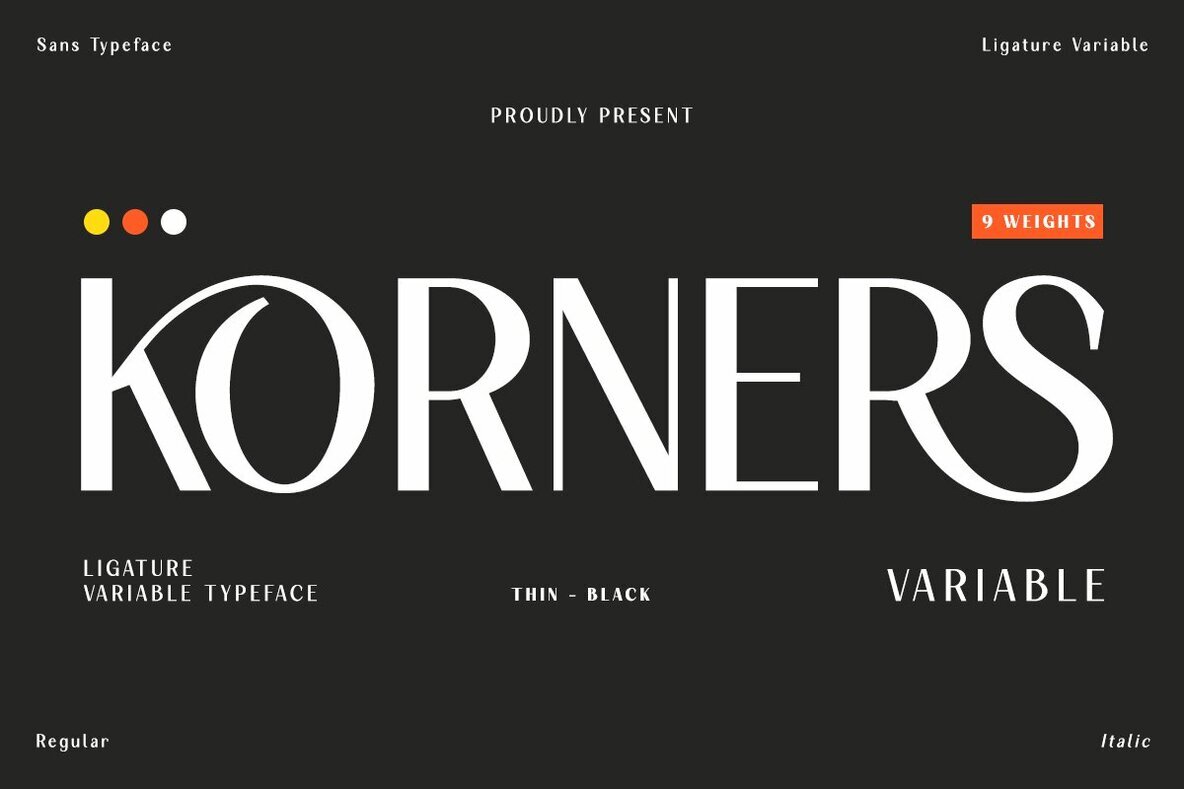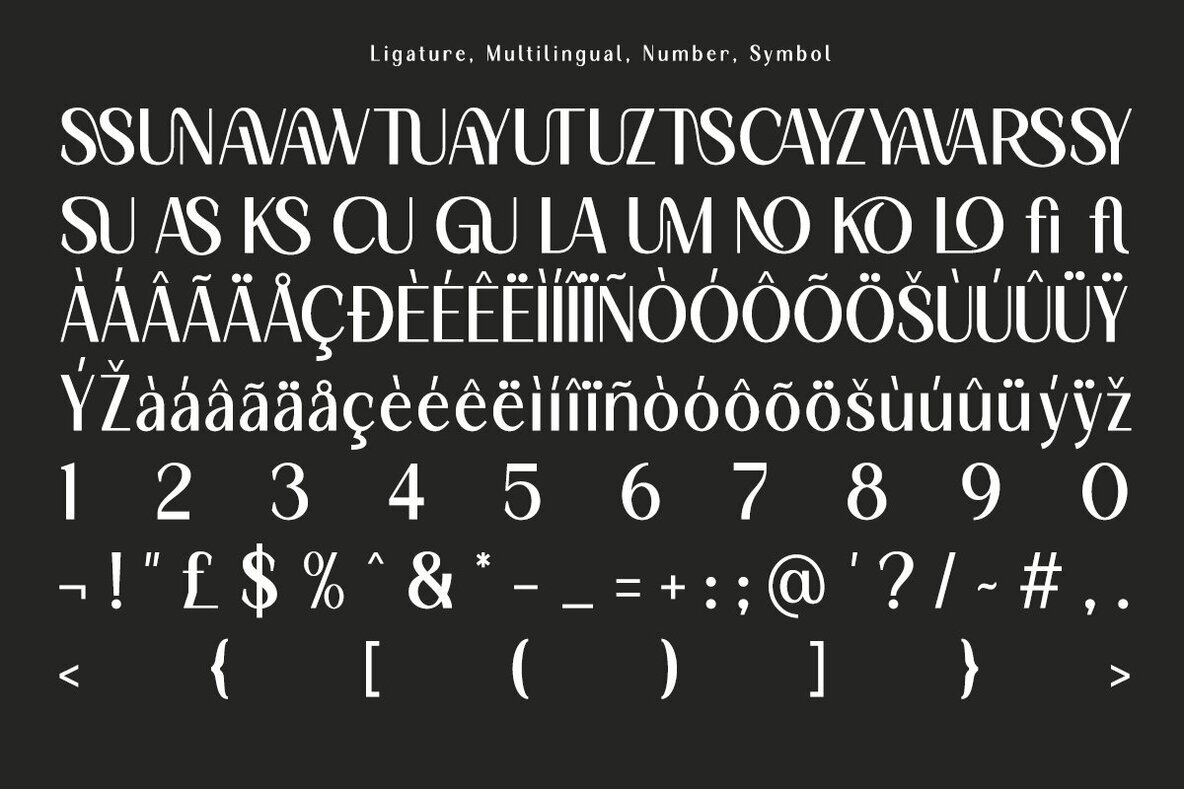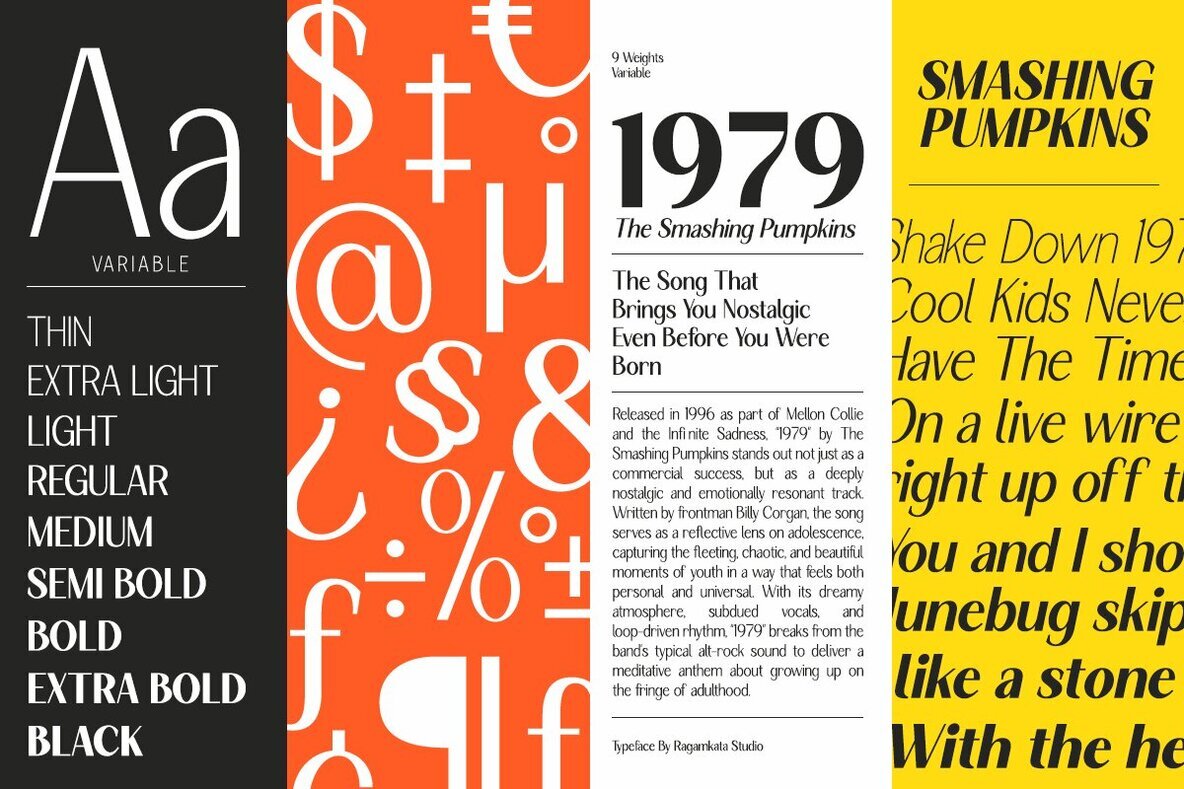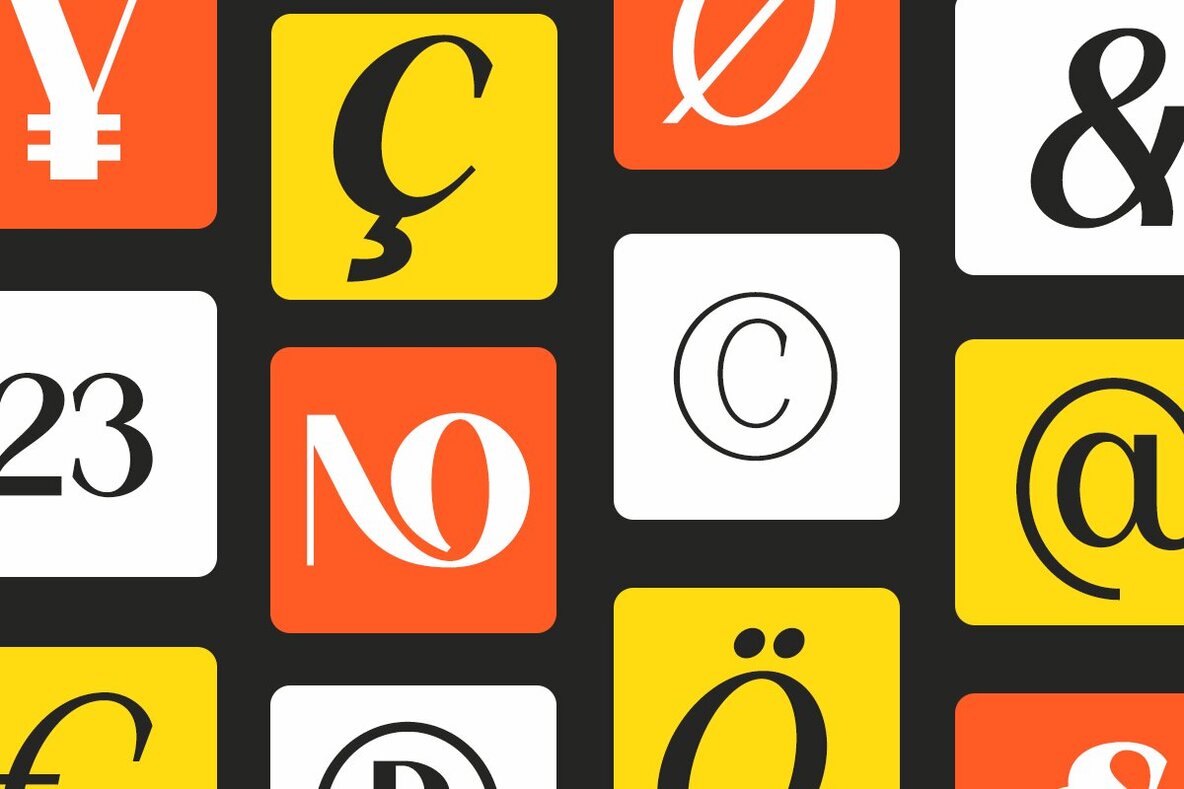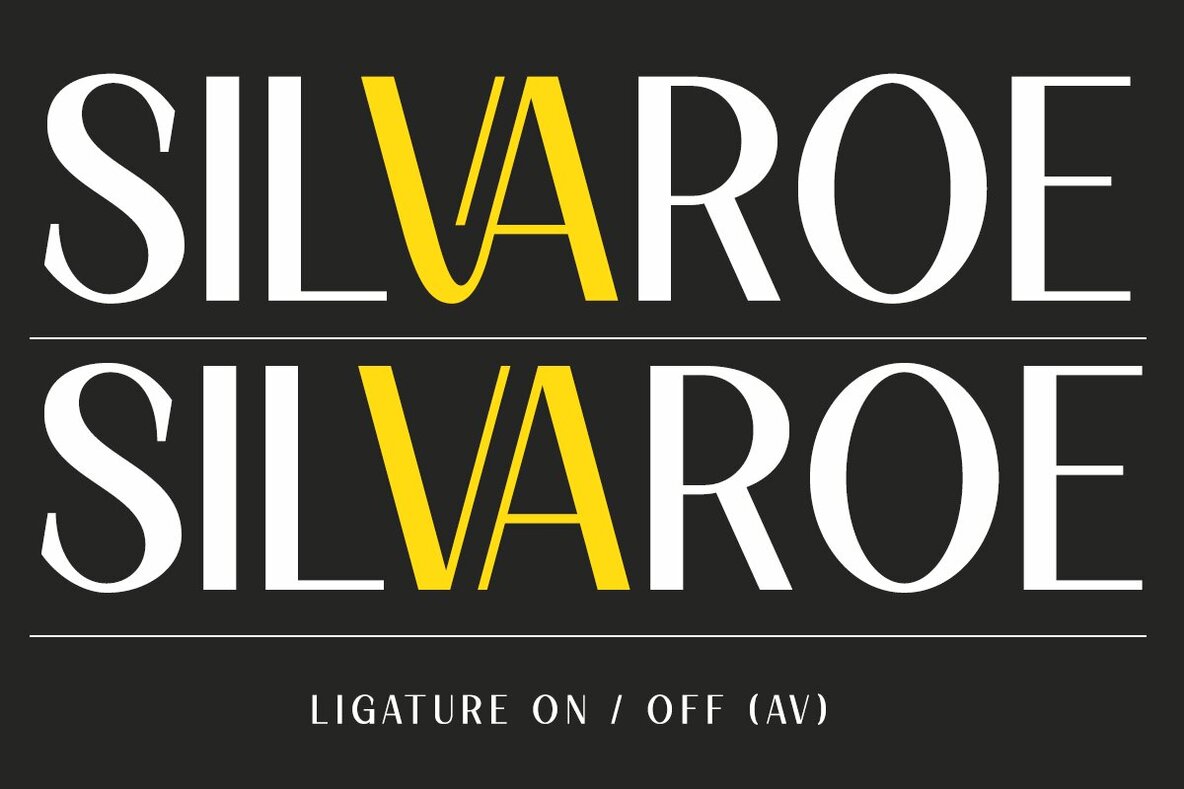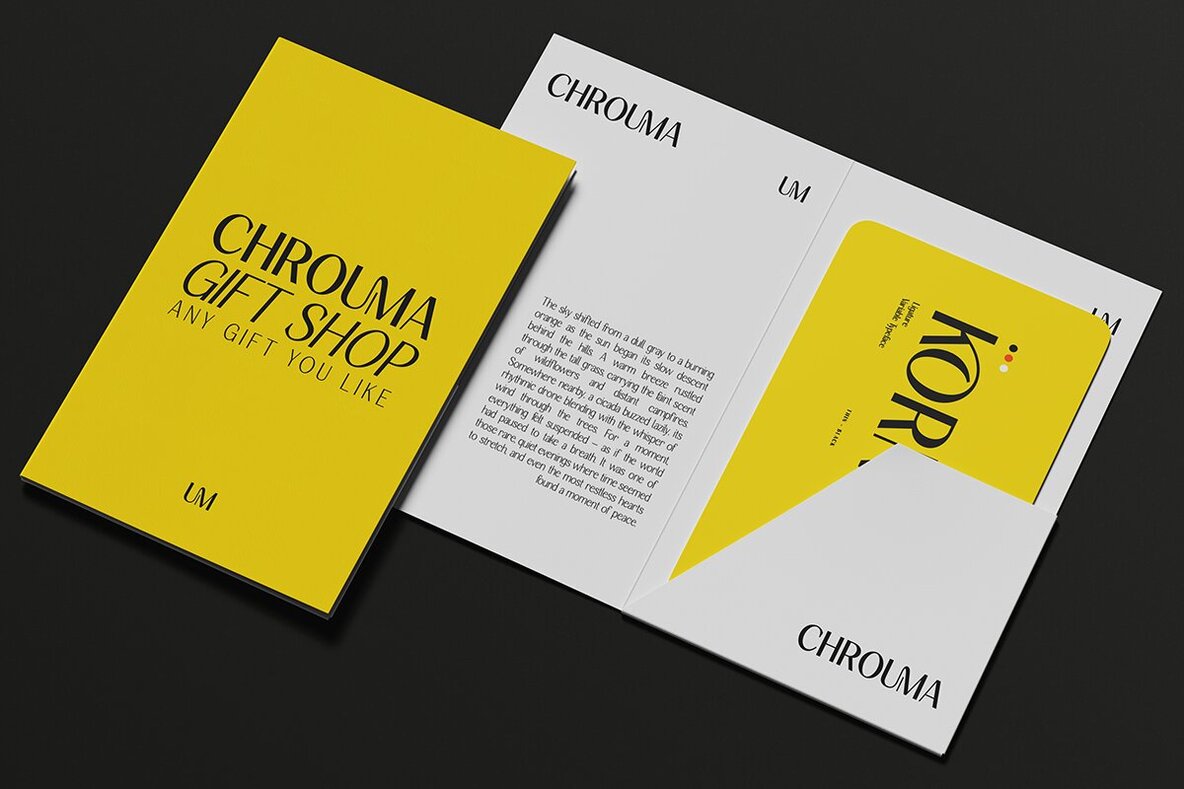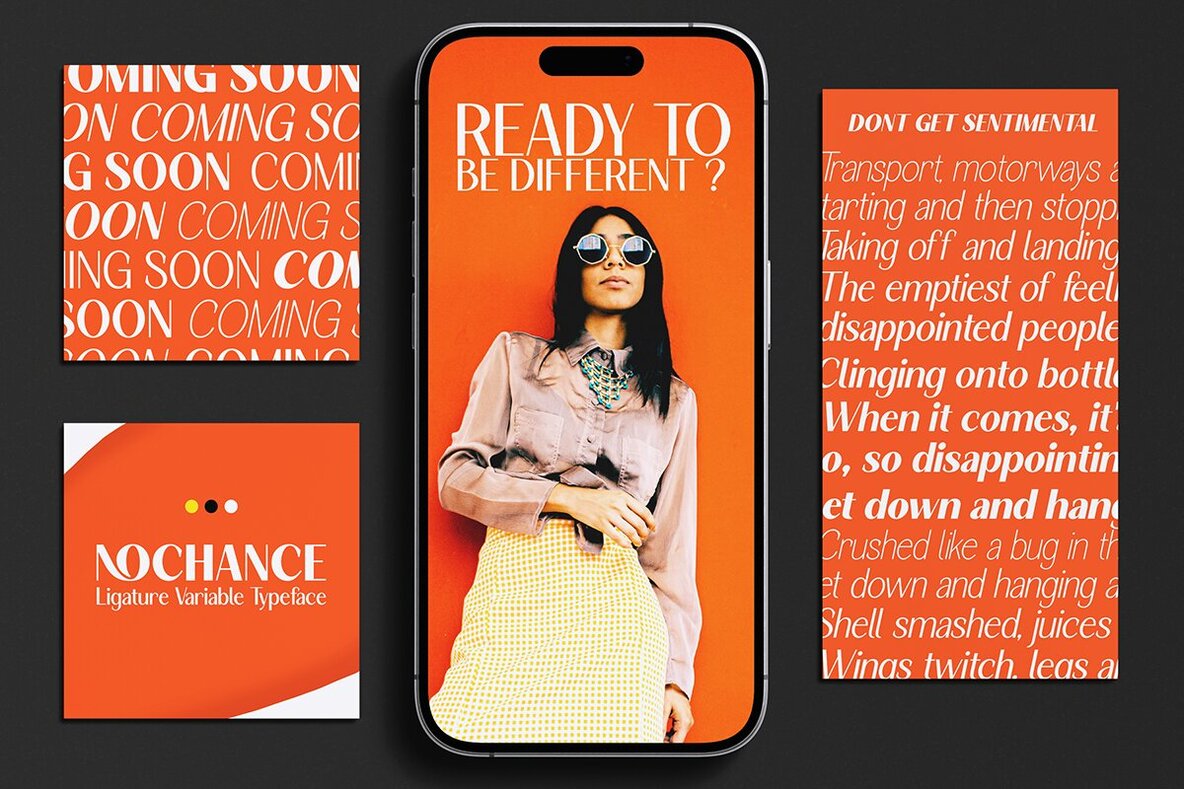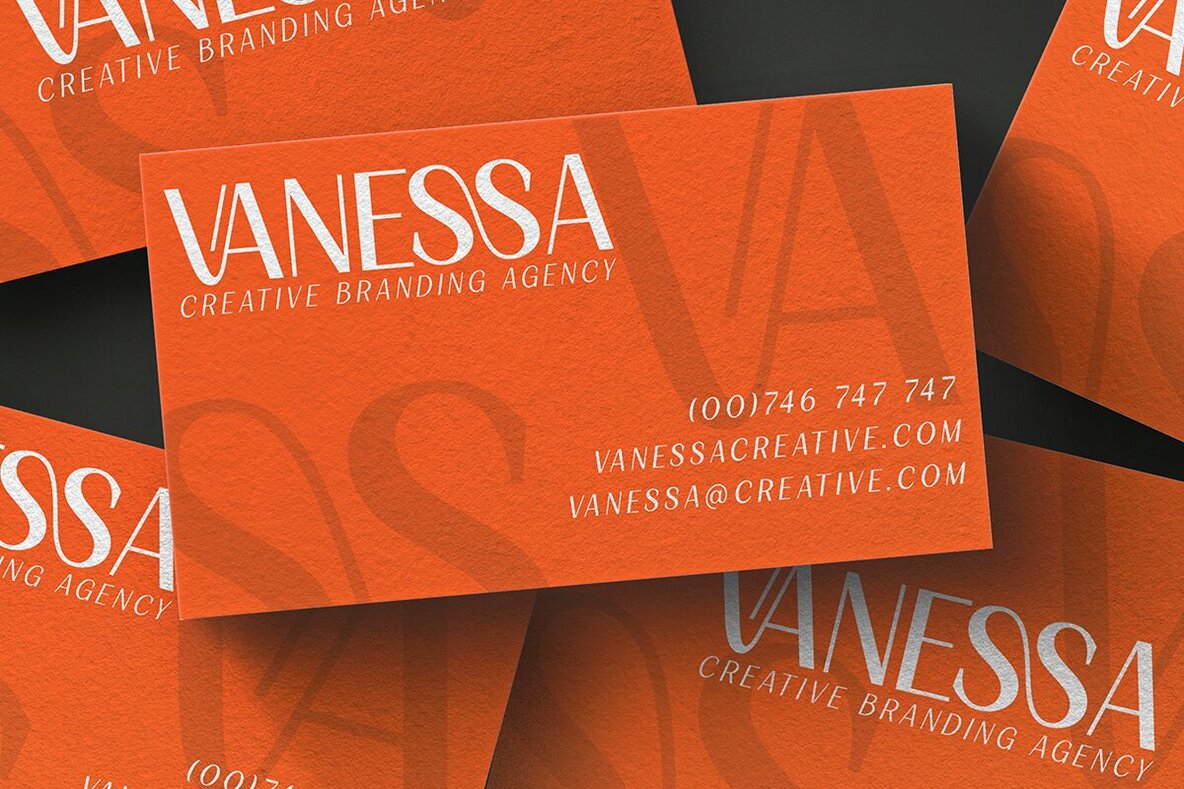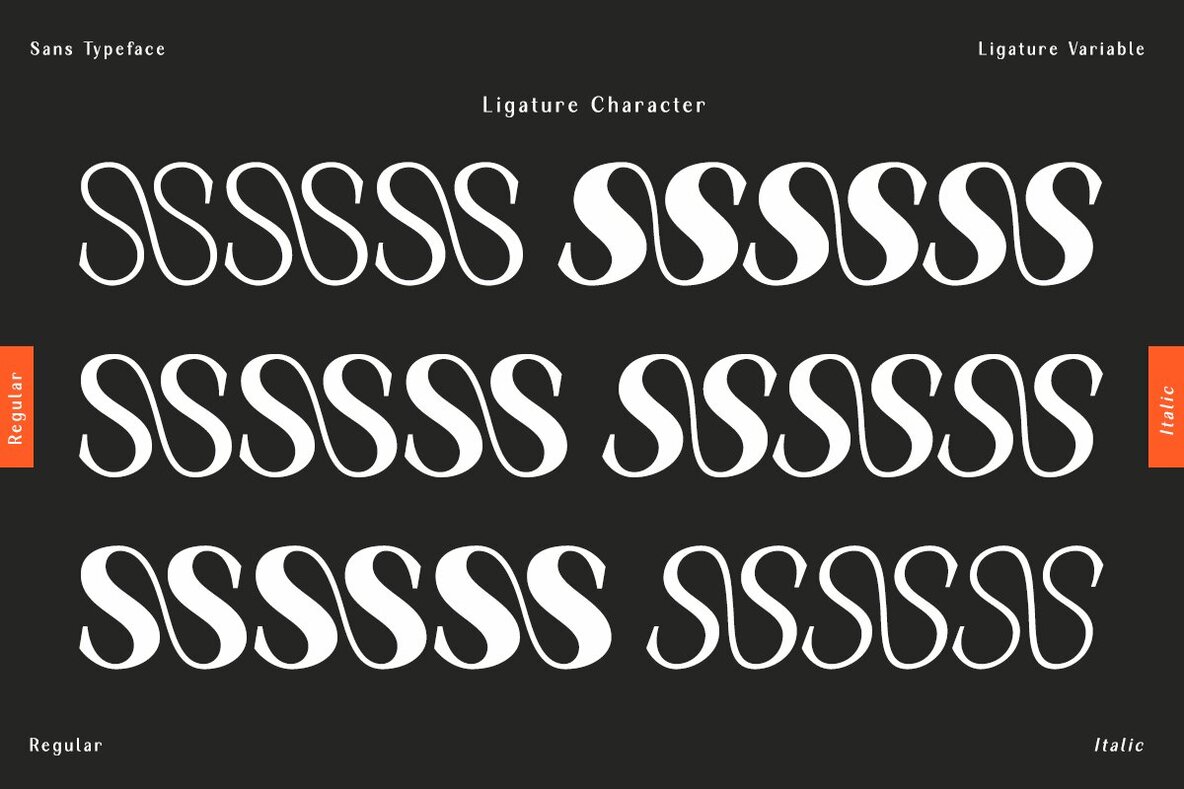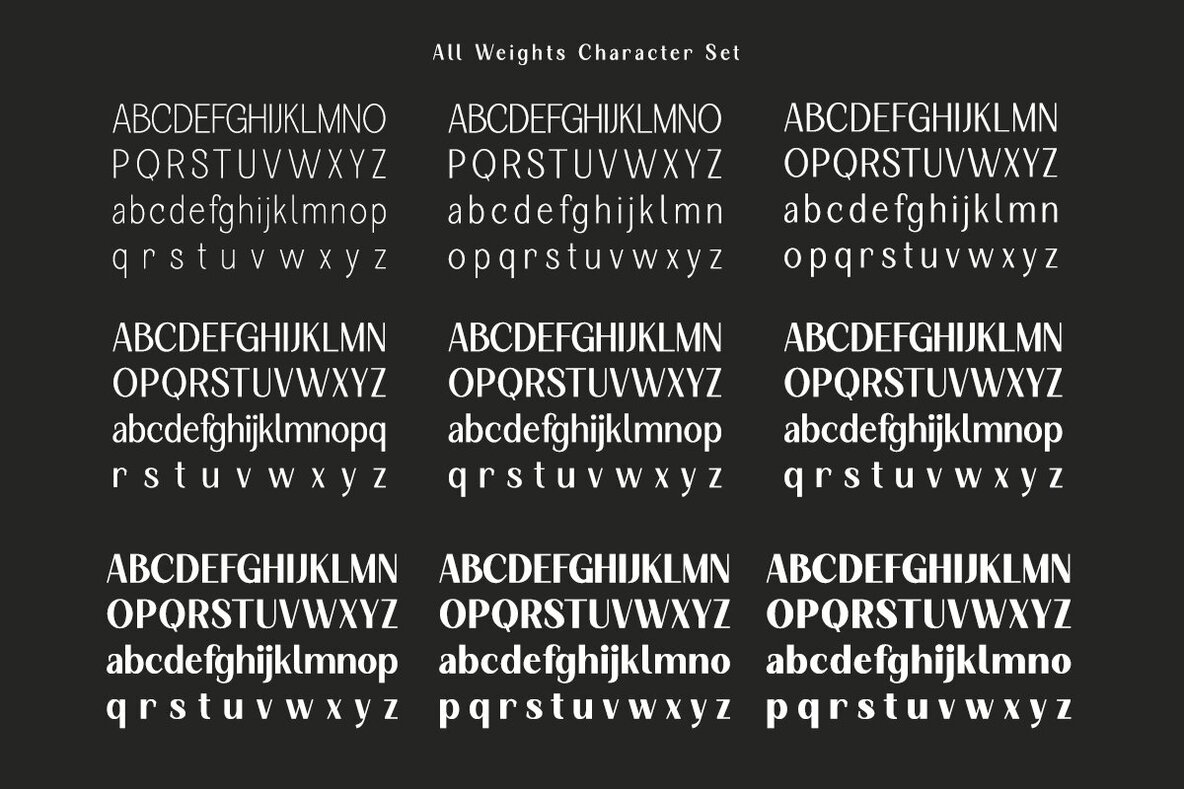
Korners Font
In our pursuit of designing logos with a distinctive elegance, we crafted Korners. This variable ligatures sans serif font is ideal for projects requiring a unique aesthetic blended with refined shapes. Its versatility spans a wide range of applications from magazine layouts to wedding invitations and branding, ensuring it meets the diverse needs of creative professionals. Features:Korners: A Polished Sans Serif with Variable Ligatures